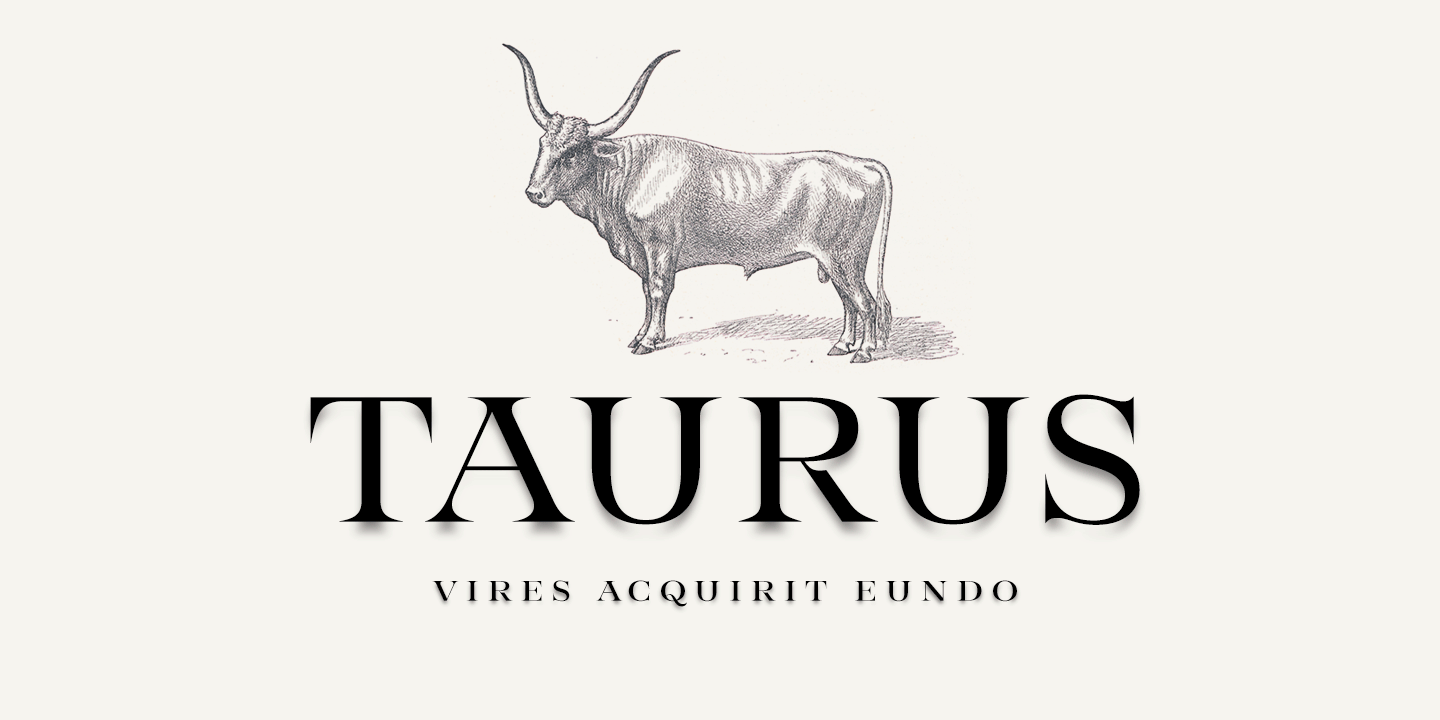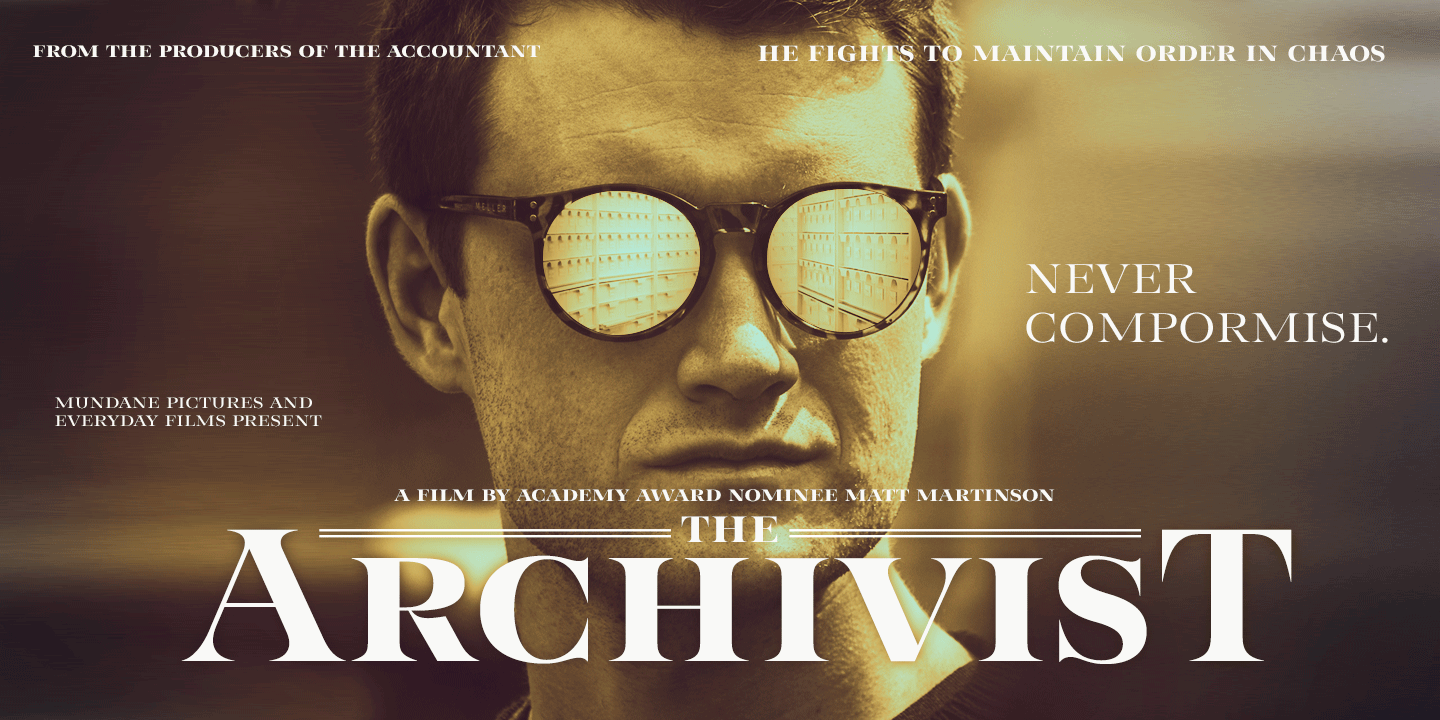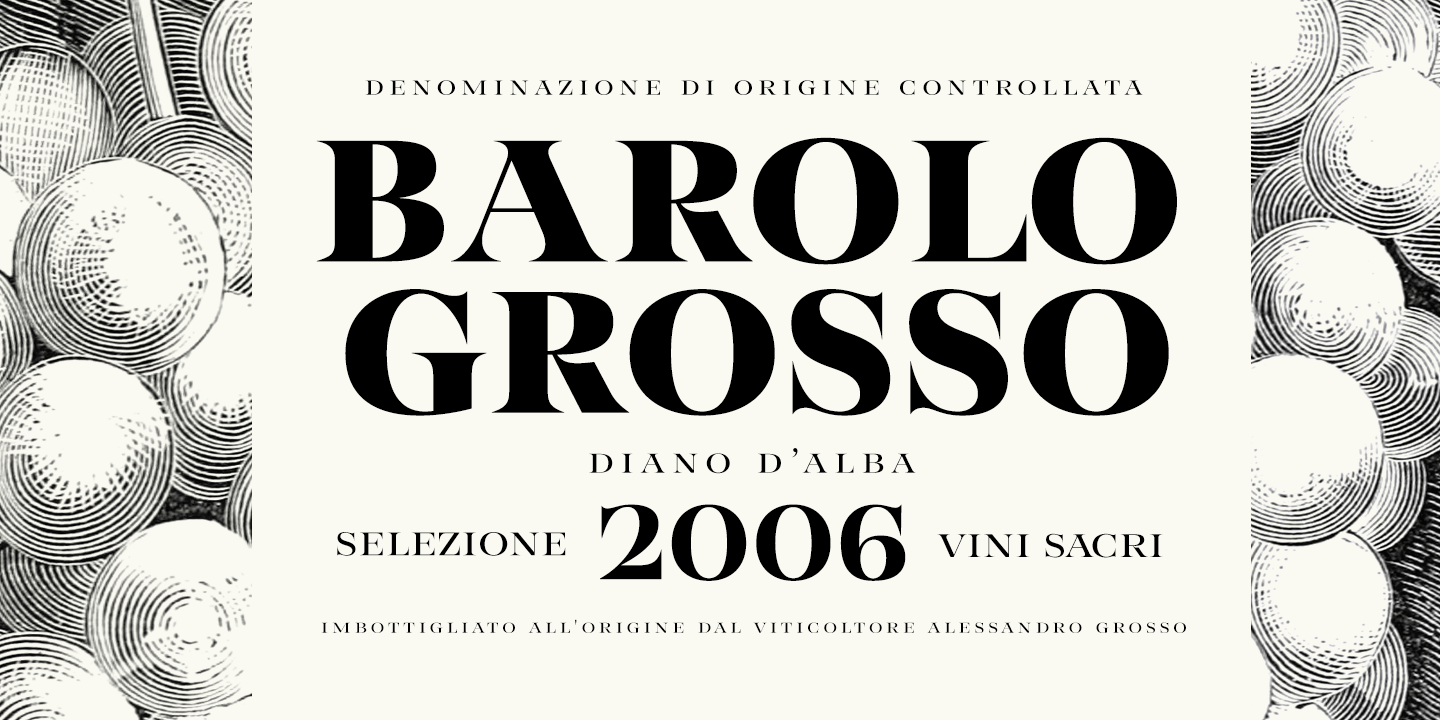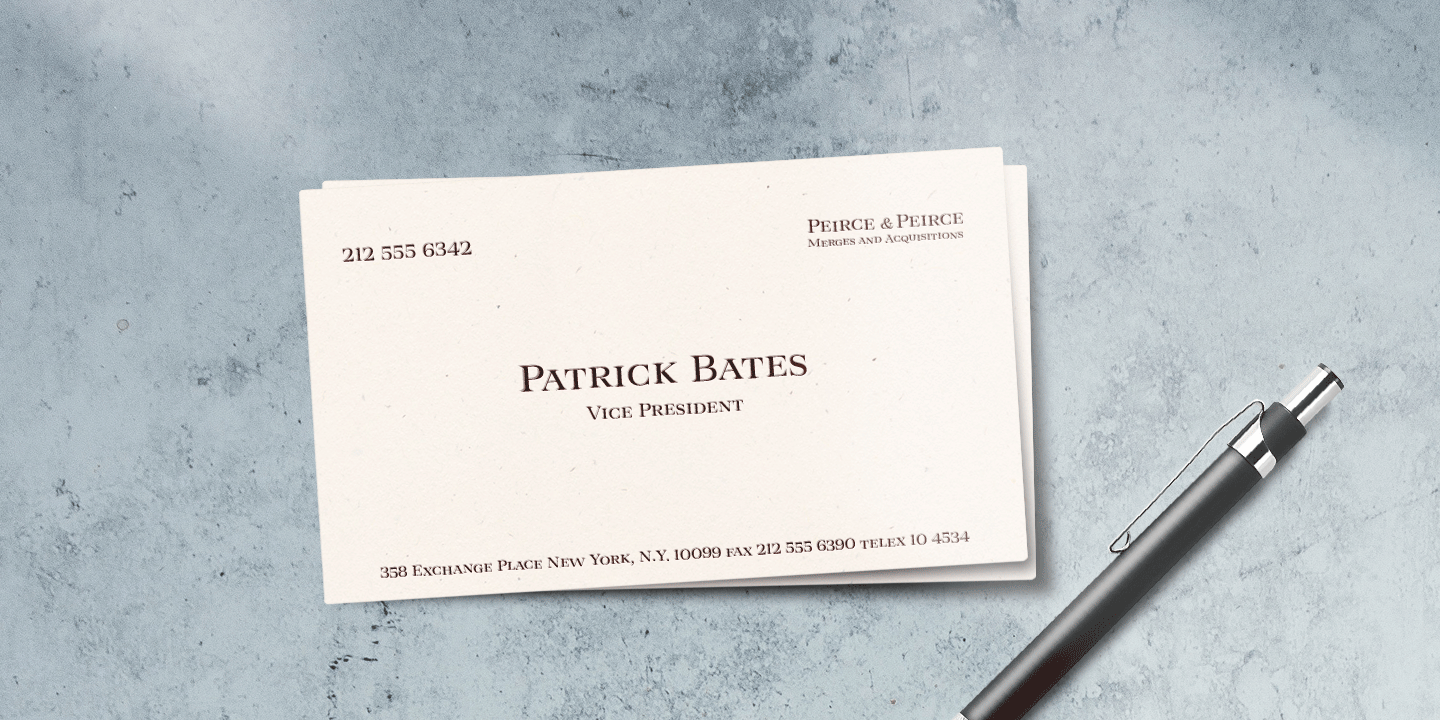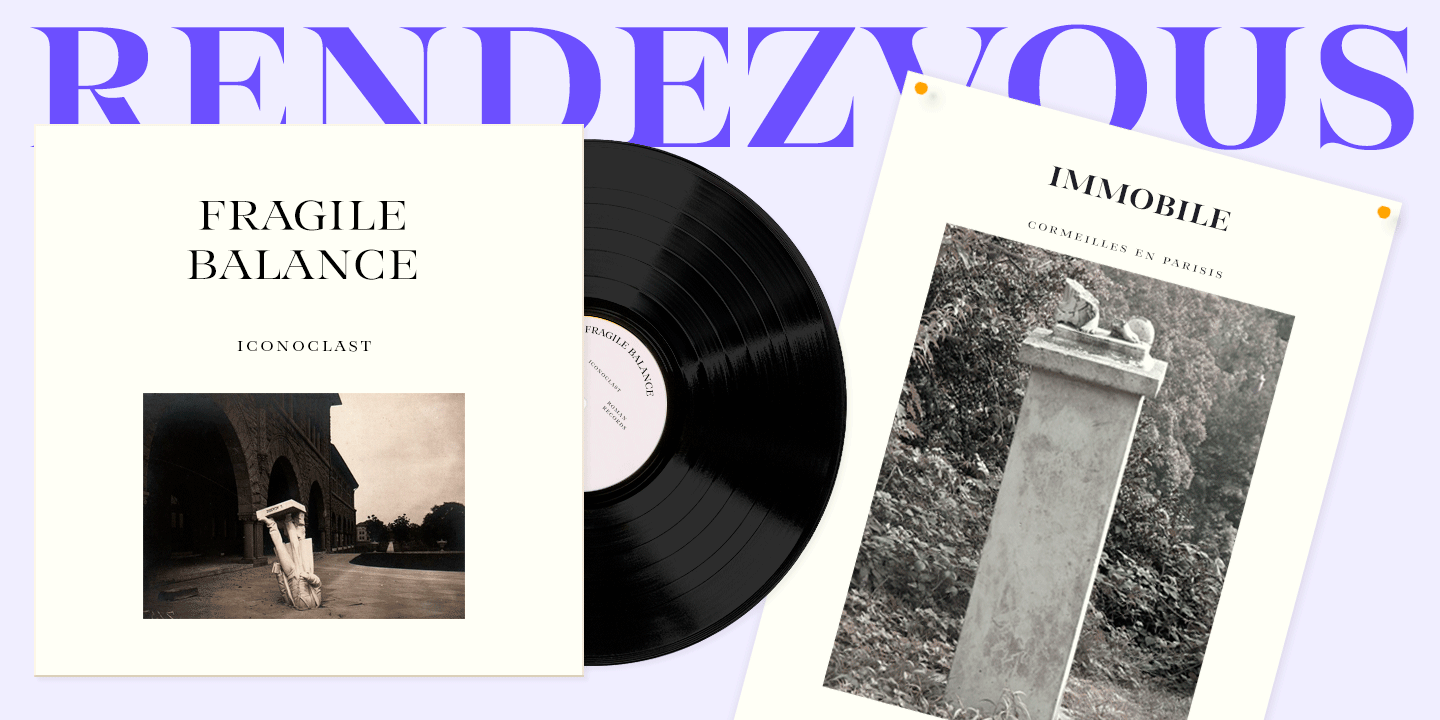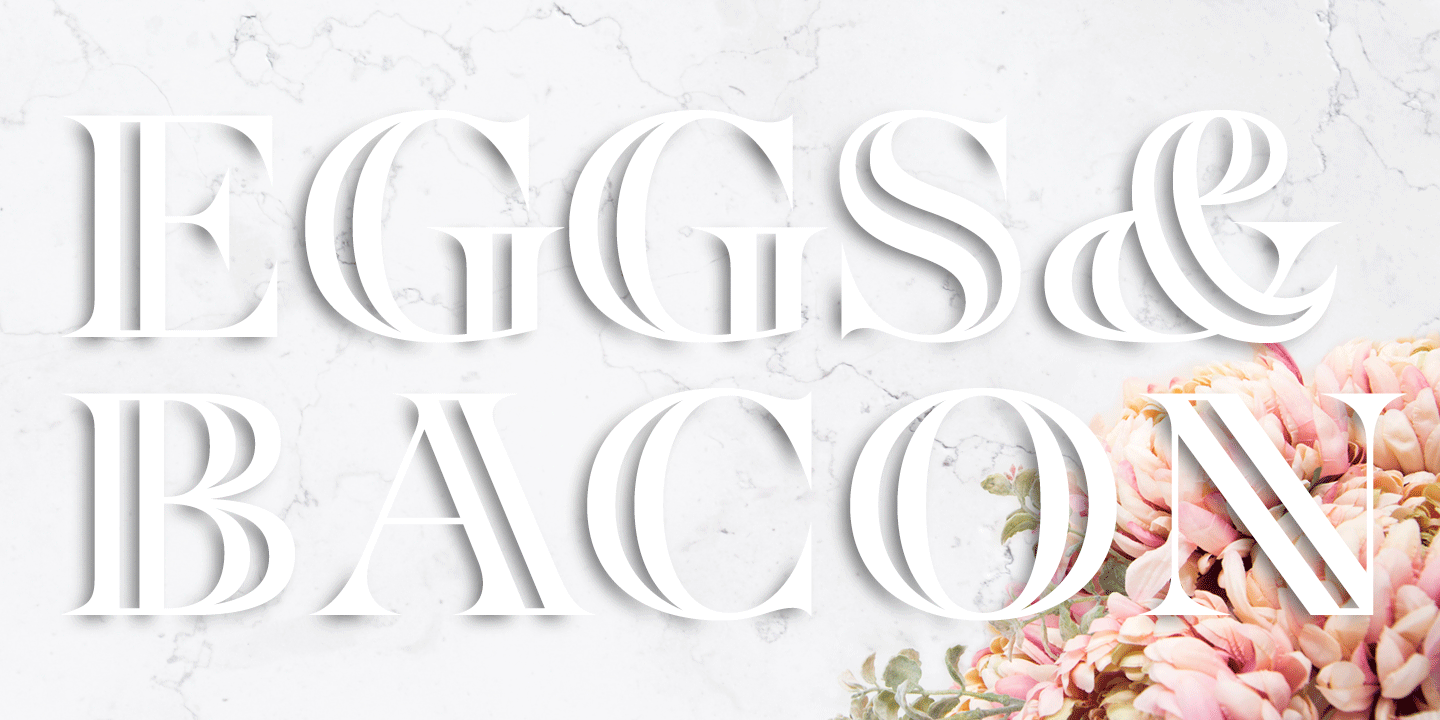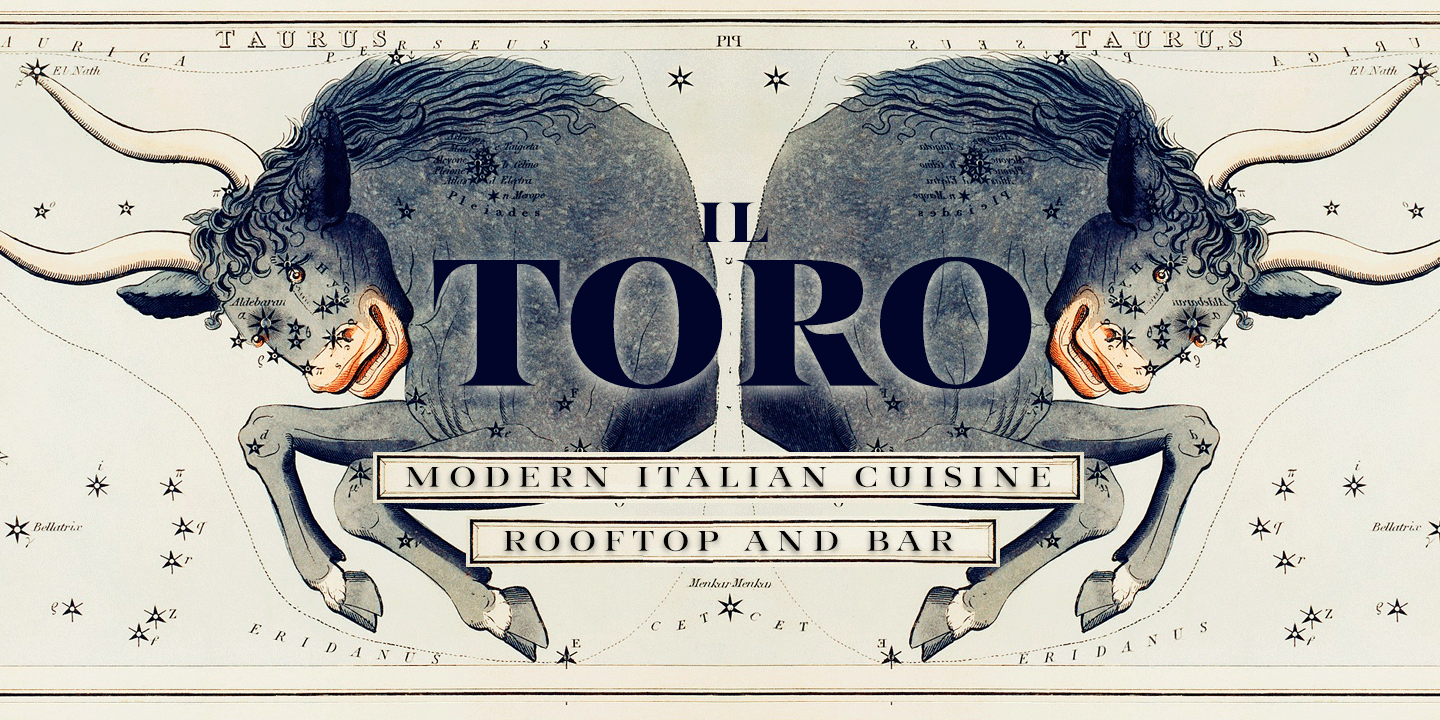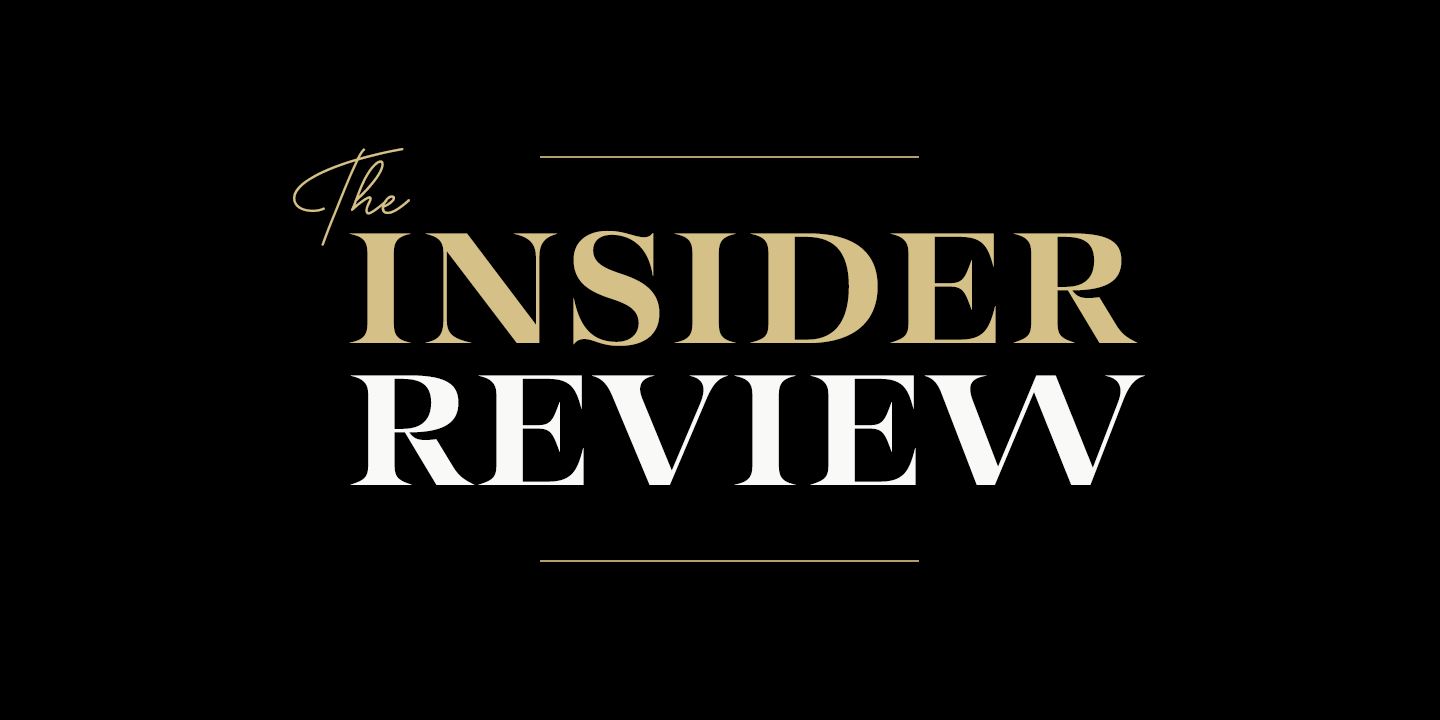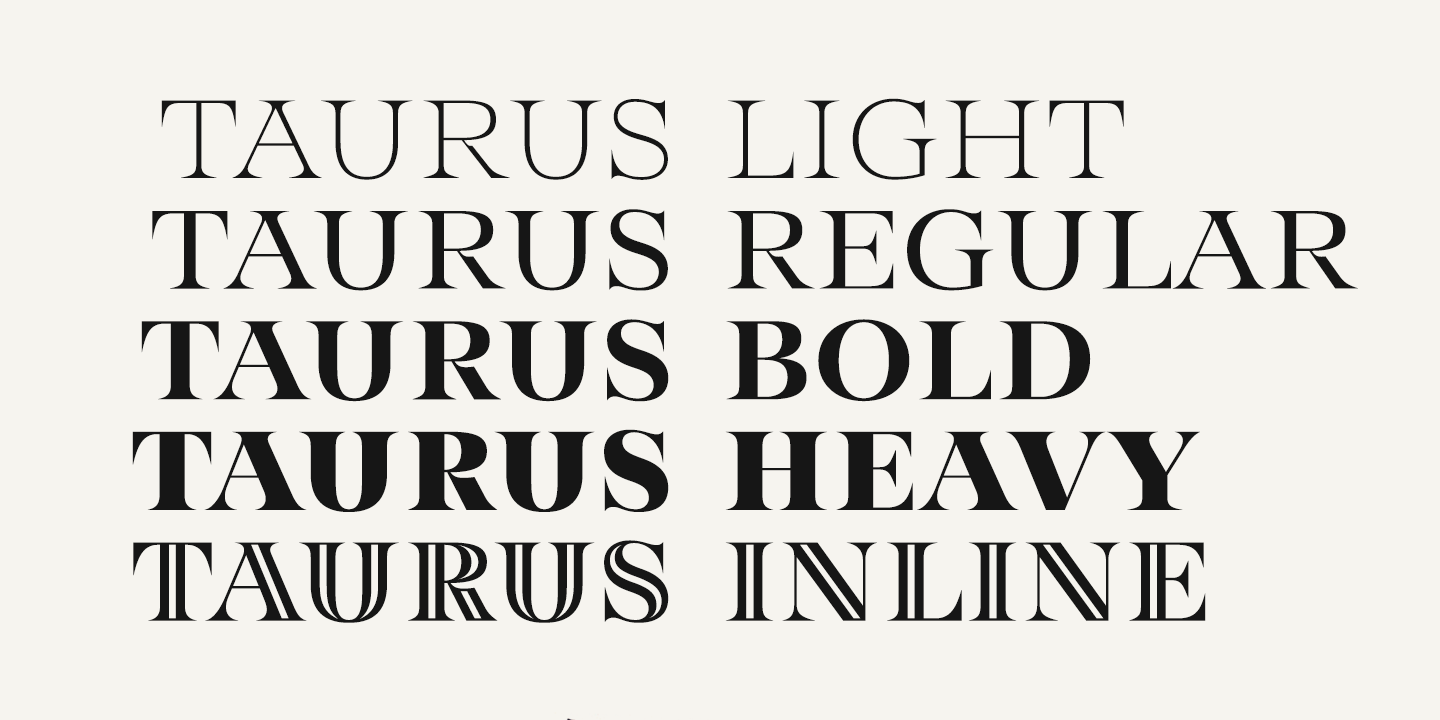
Taurus
Font Family by Fenotype
Save time and effort ? choose your type wisely. Use Taurus and you'll achieve impact without having to resort to cheap tricks. We have done the work for you: just type out words using Taurus and you'll have a logo for a Wall Street law firm ? or for that precious vintage Barolo. ?
Refinement. Sophistication. Seriousness. Sex appeal. Taurus has it all.